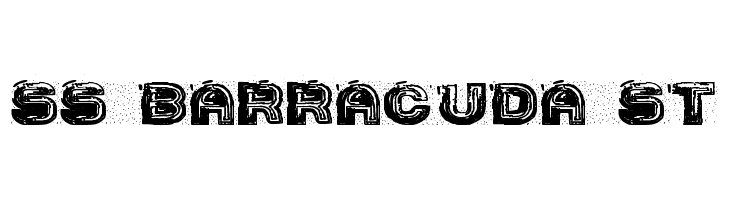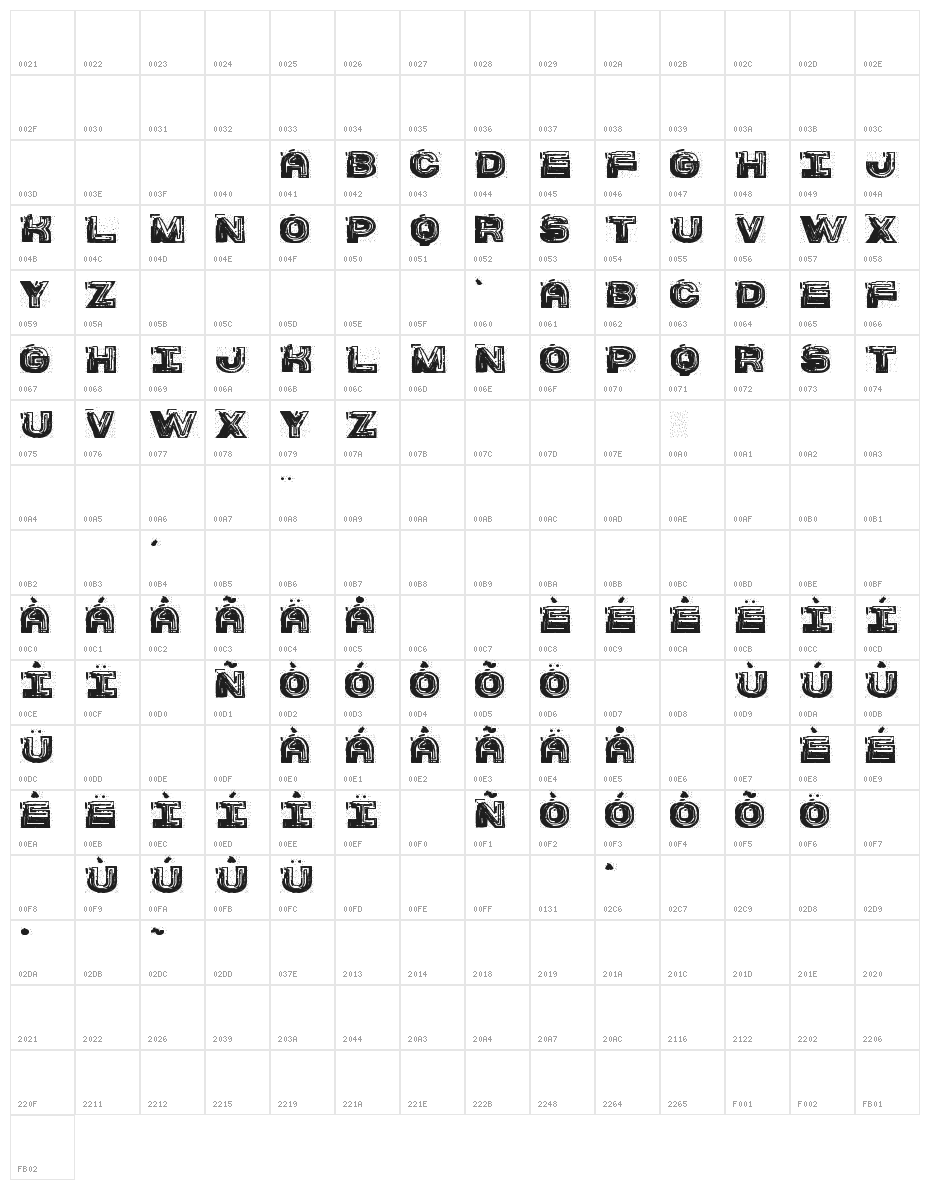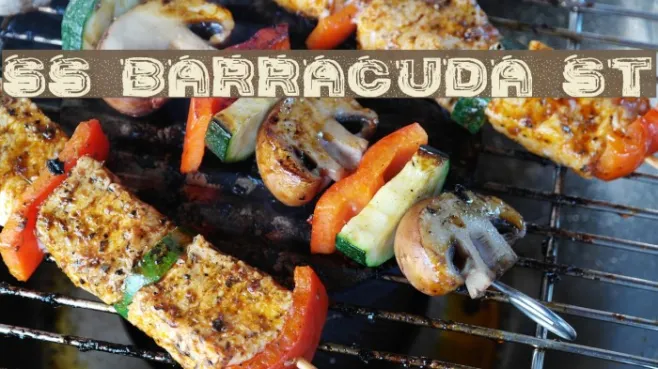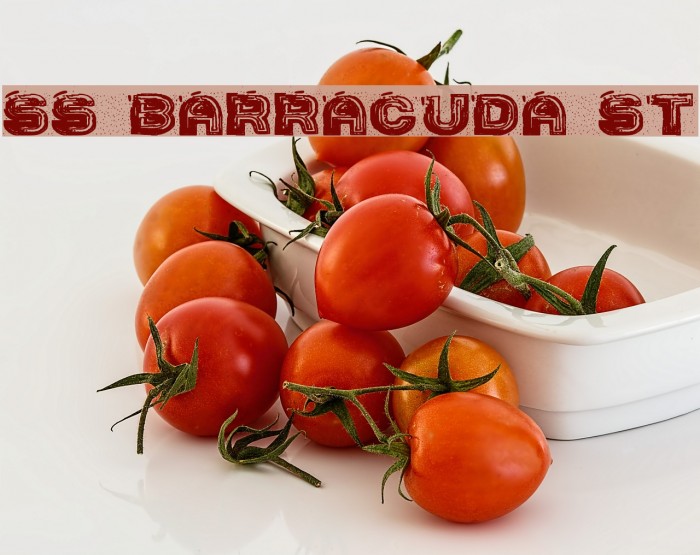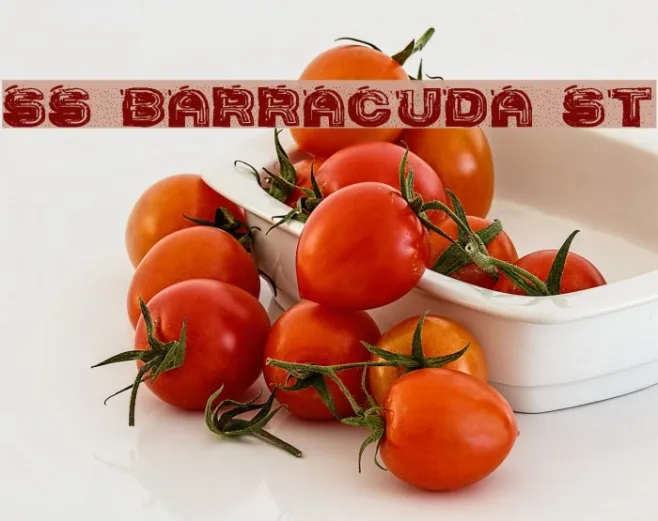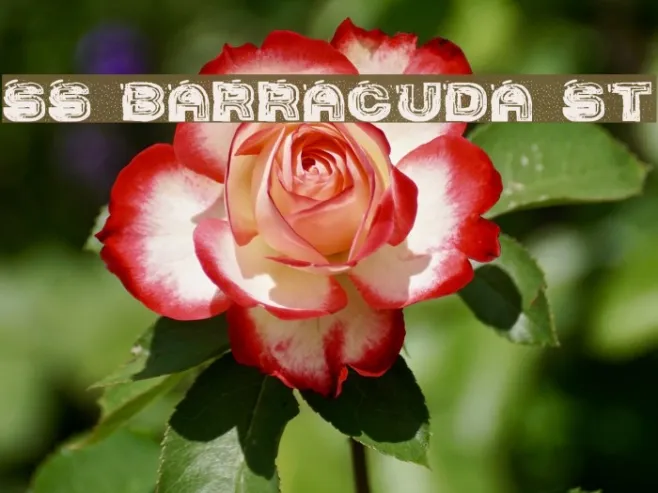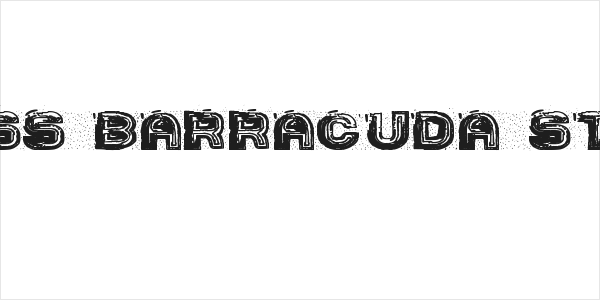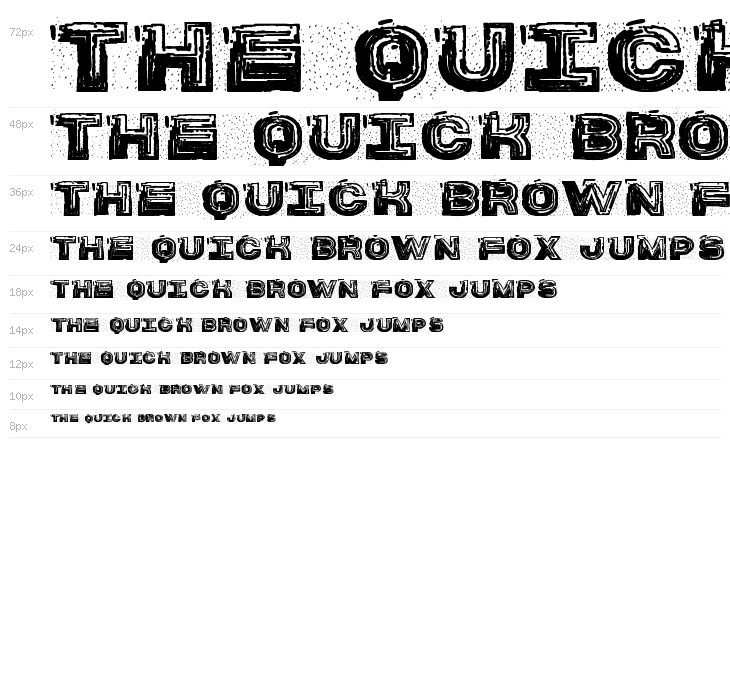
SS Barracuda St Font
SS Barracuda St Description
This font features a bold and dynamic design with a distressed, textured appearance. Each character is uniquely styled with rough edges and a slightly uneven surface, giving it a rugged and industrial feel. The uppercase letters are prominent and impactful, making them suitable for attention-grabbing headlines. The font's design incorporates a sense of movement and energy, with strokes that vary in thickness, adding to its visual interest. This font is ideal for projects that require a strong, edgy aesthetic, such as posters, album covers, or branding for adventurous or bold themes.
| Proposed Projects | Ideal for posters, album covers, branding, and adventurous themes. |